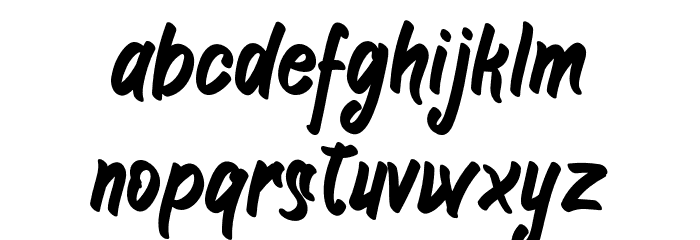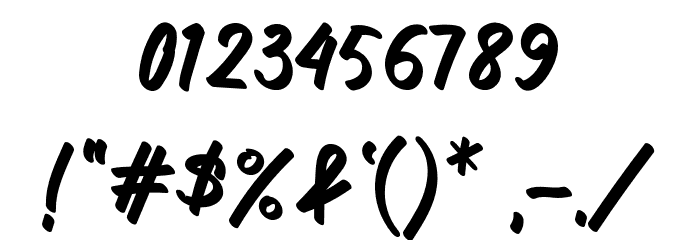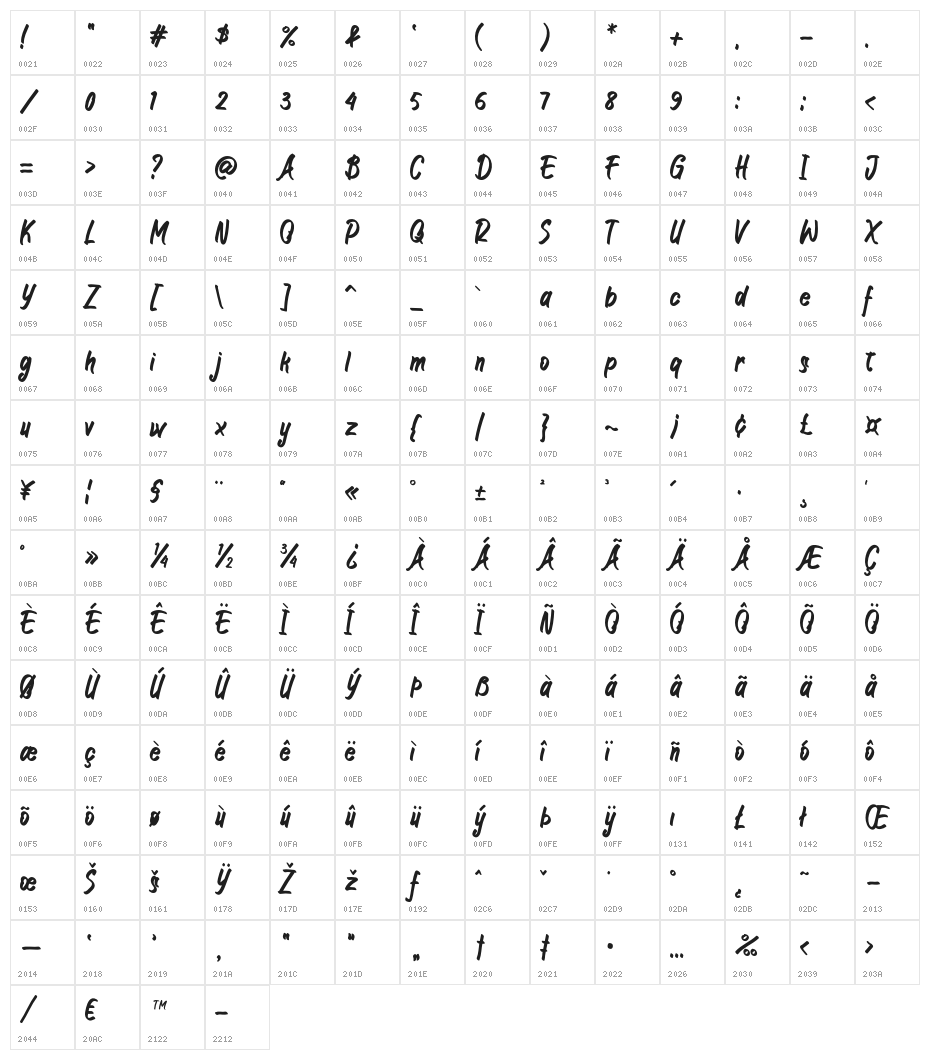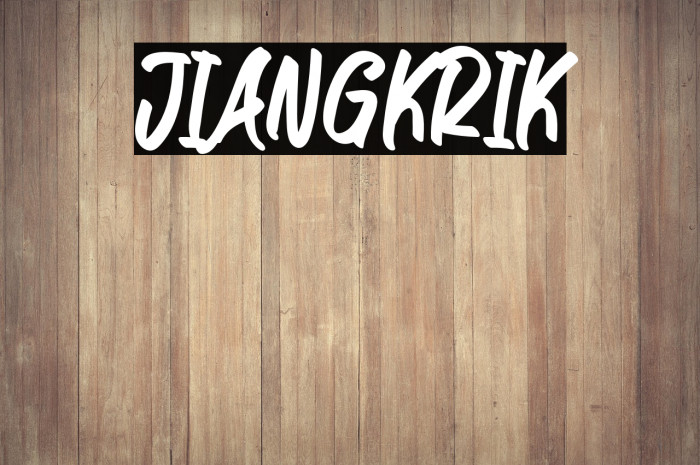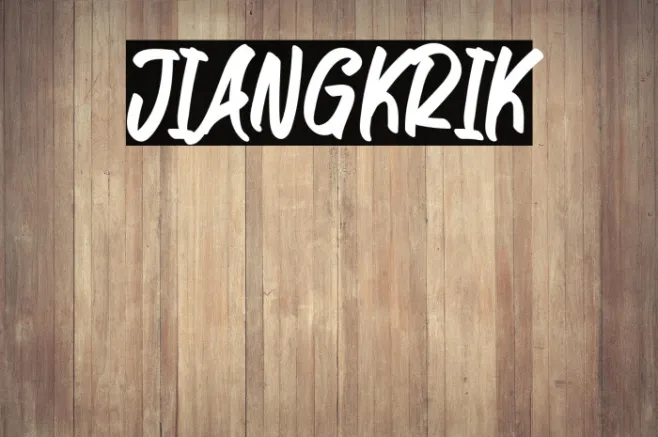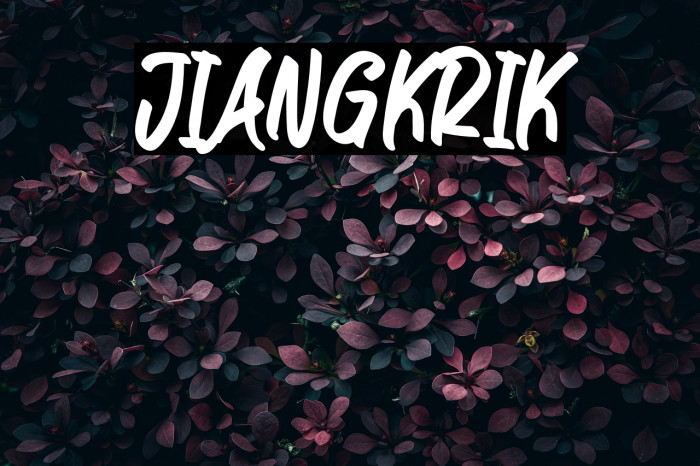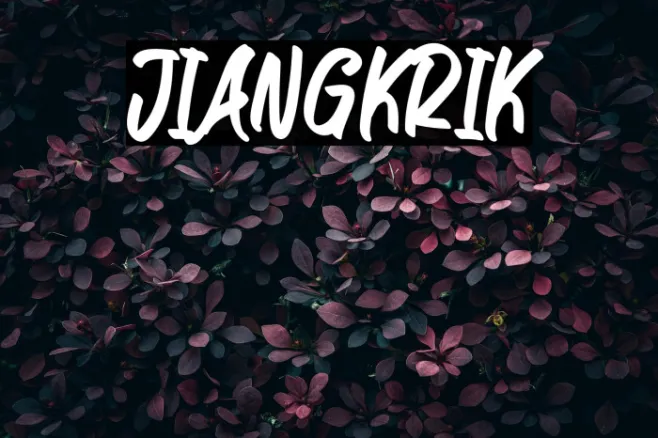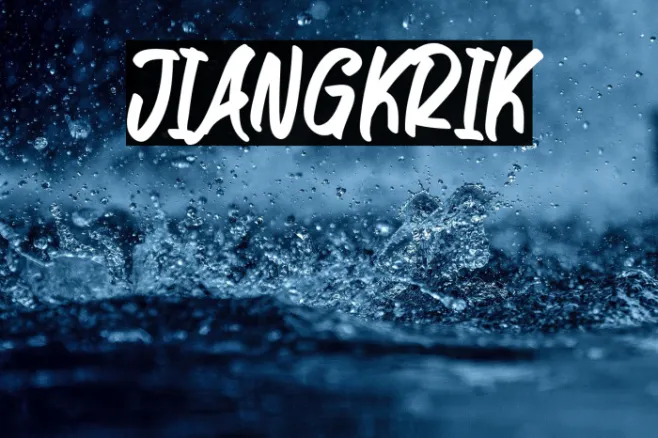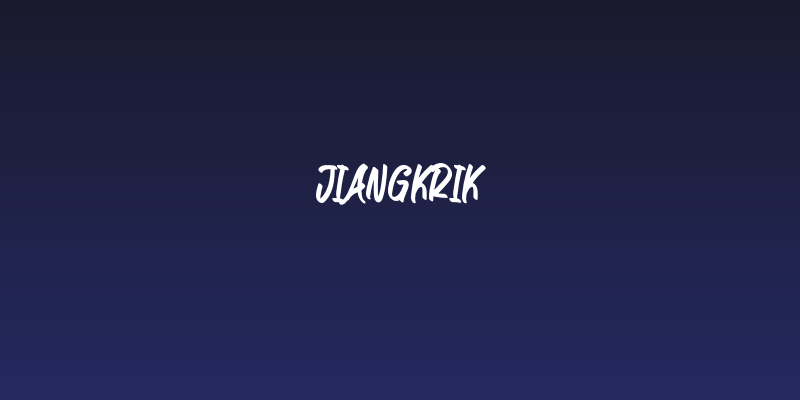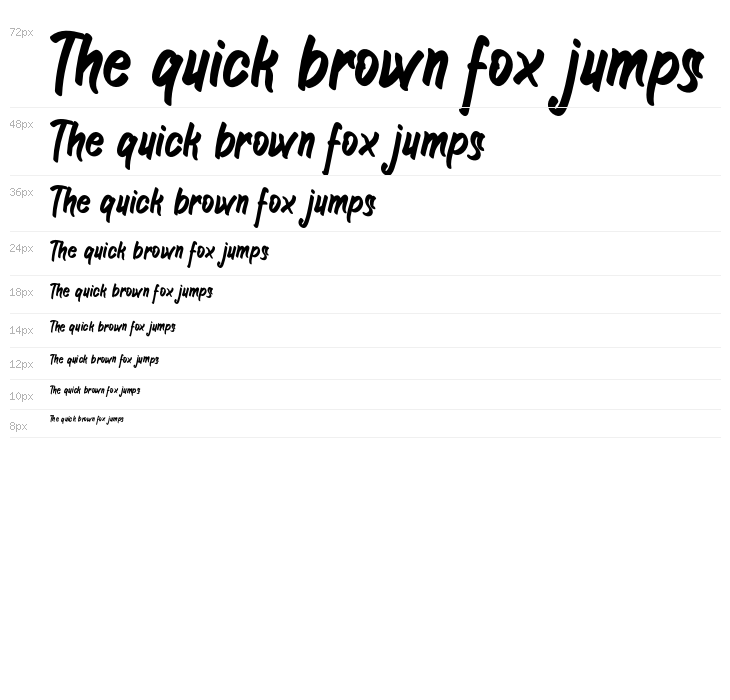
JIANGKRIK Font
This font features a bold and dynamic handwritten style, characterized by its fluid and energetic strokes. The uppercase letters exhibit a strong presence with slightly slanted forms, while the lowercase letters maintain a consistent flow, adding a casual yet impactful feel. The numerals and special characters follow the same energetic style, ensuring uniformity across all elements. This font's design is both playful and assertive, making it suitable for projects that require a personal touch with a bold statement.
A bold, dynamic handwritten font with fluid strokes and a playful yet assertive style.
- Proposed Projects: Ideal for branding, poster design, social media graphics, and any project that benefits from a personal, energetic touch.
- Category: Handwritten
- Overall Style: Modern, Decorative